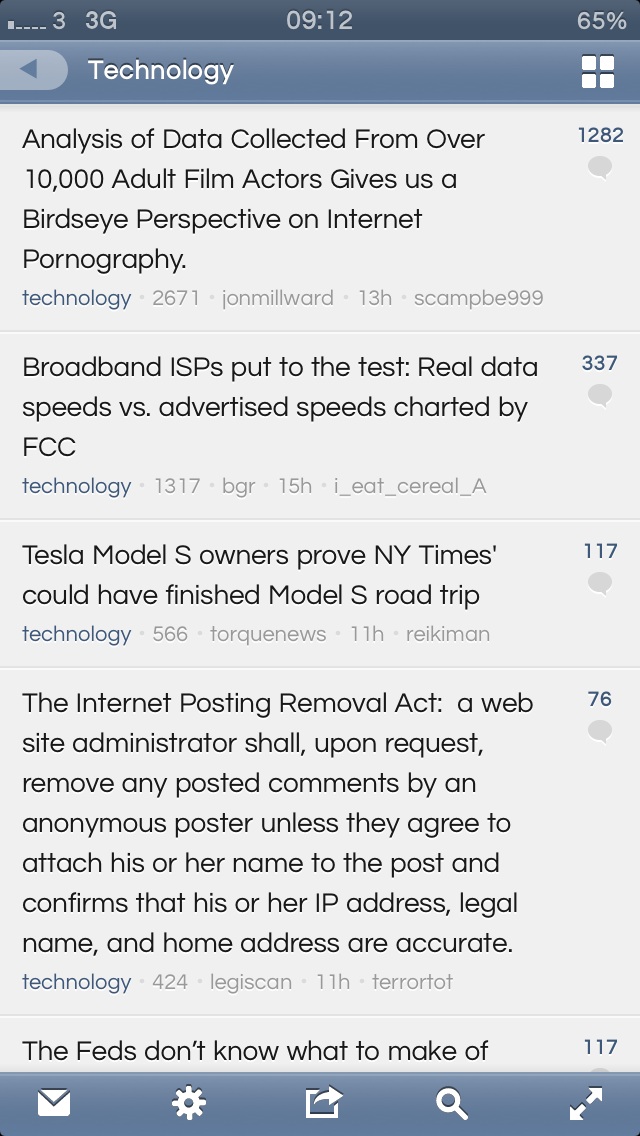
I'm looking for handwritten like fonts on cydia. Anybody know of or can recommend any good ones?
Currently using Questrial, very sleek.
Yea my tweaks are very limited, like 5 so I'm was trying to make sure. You have a point though, one font shouldn't hurt. I went with "aaiight" and so far so good! No lag or anything. Thanks a lot